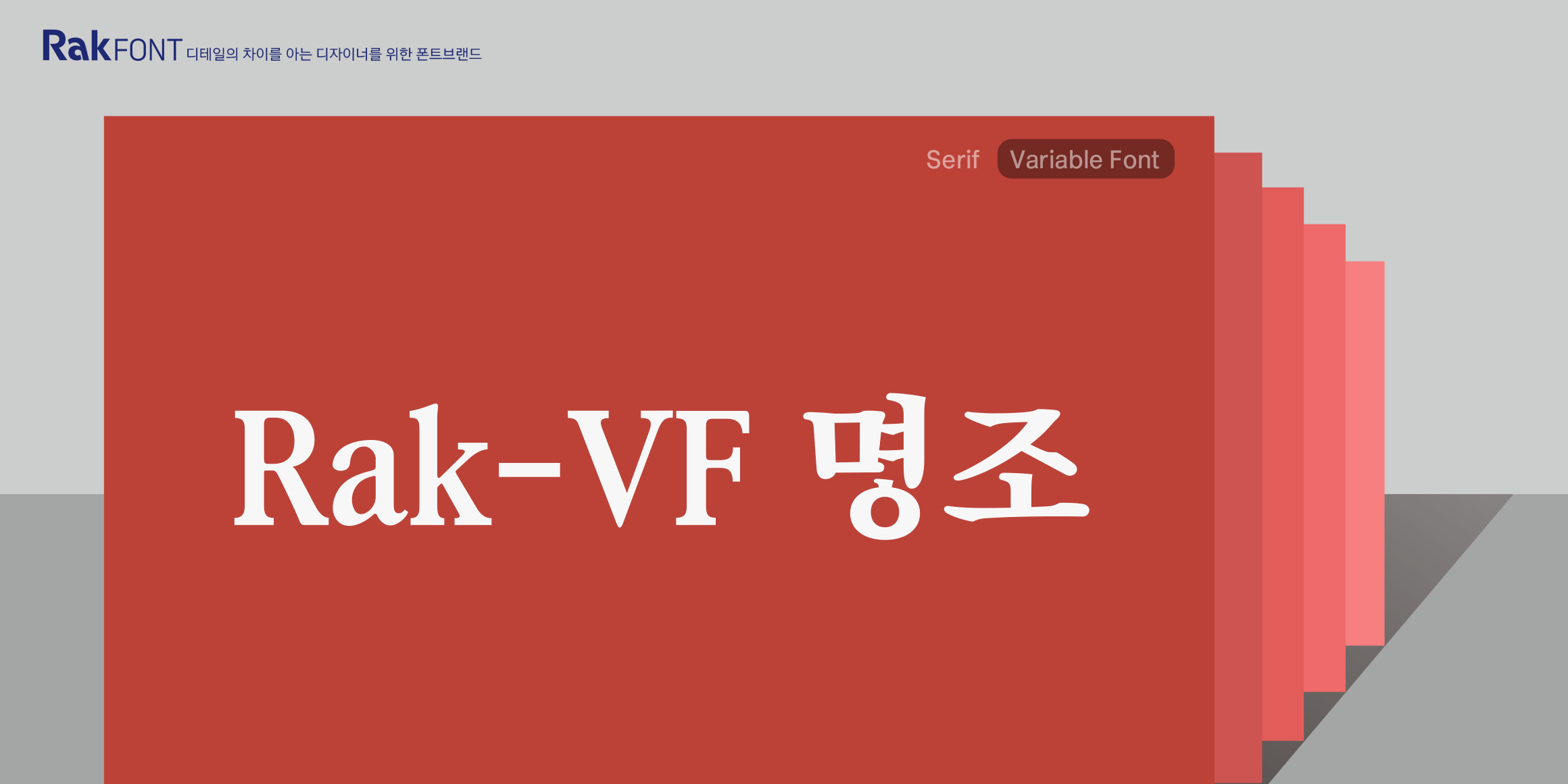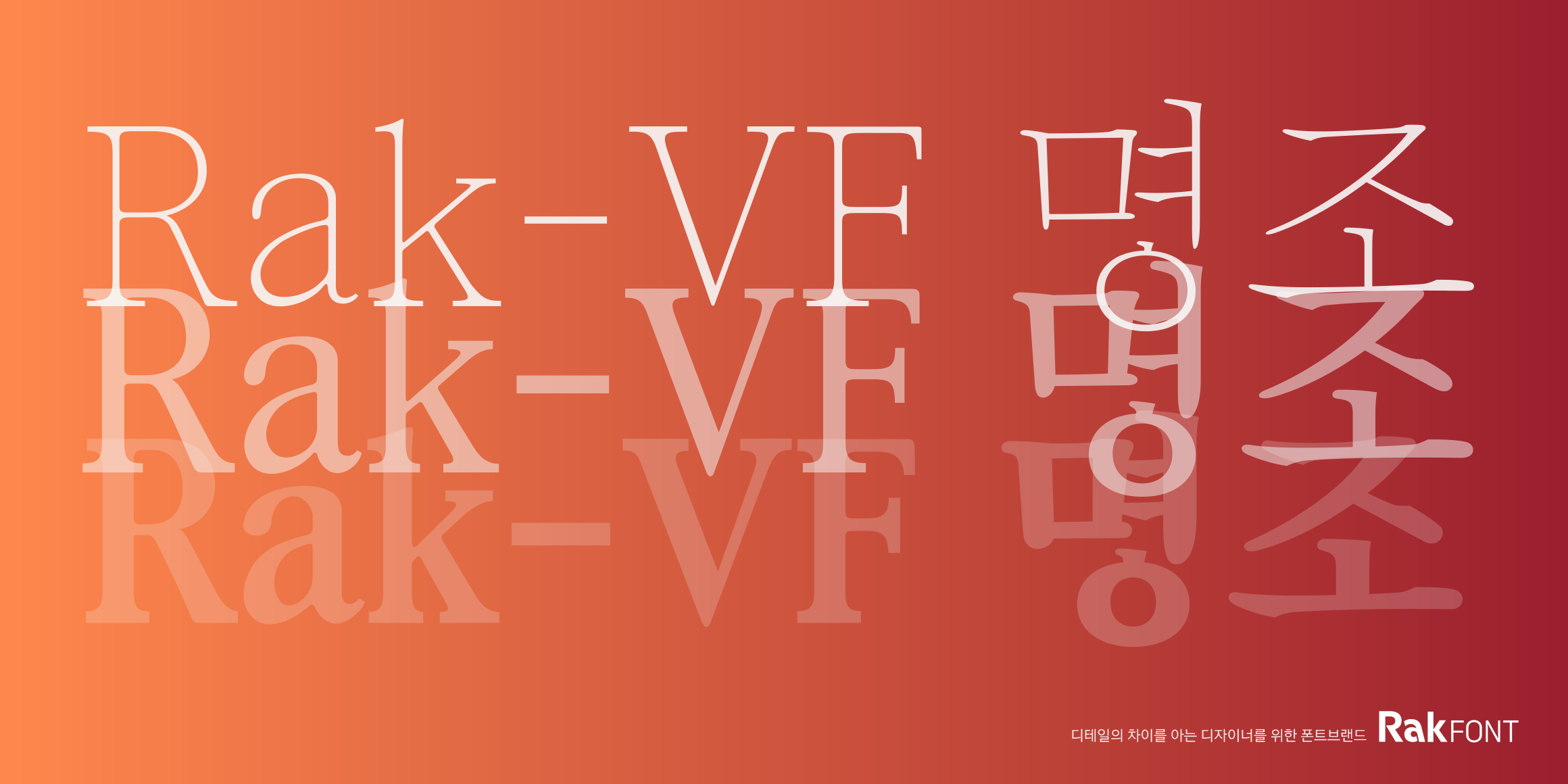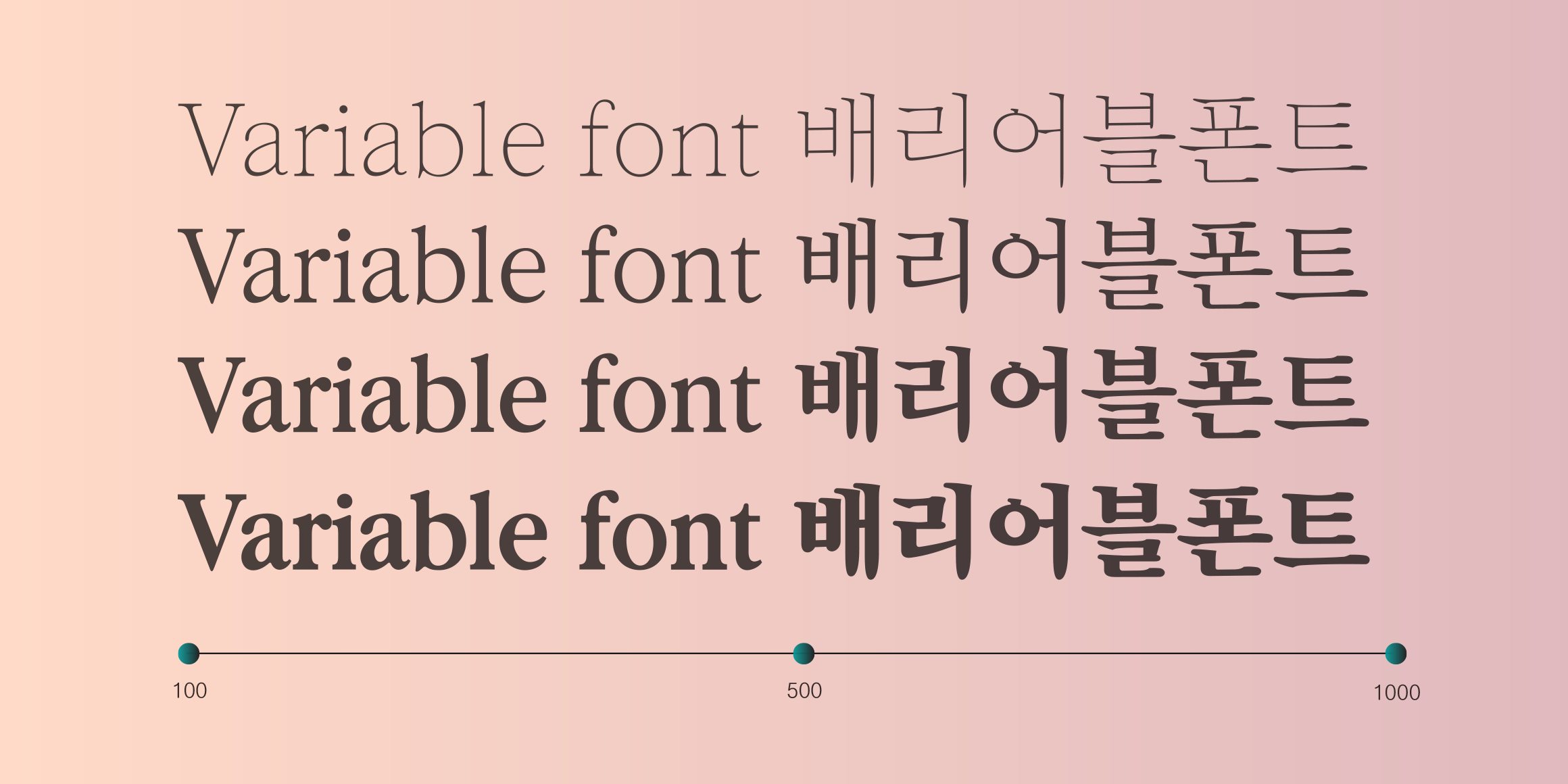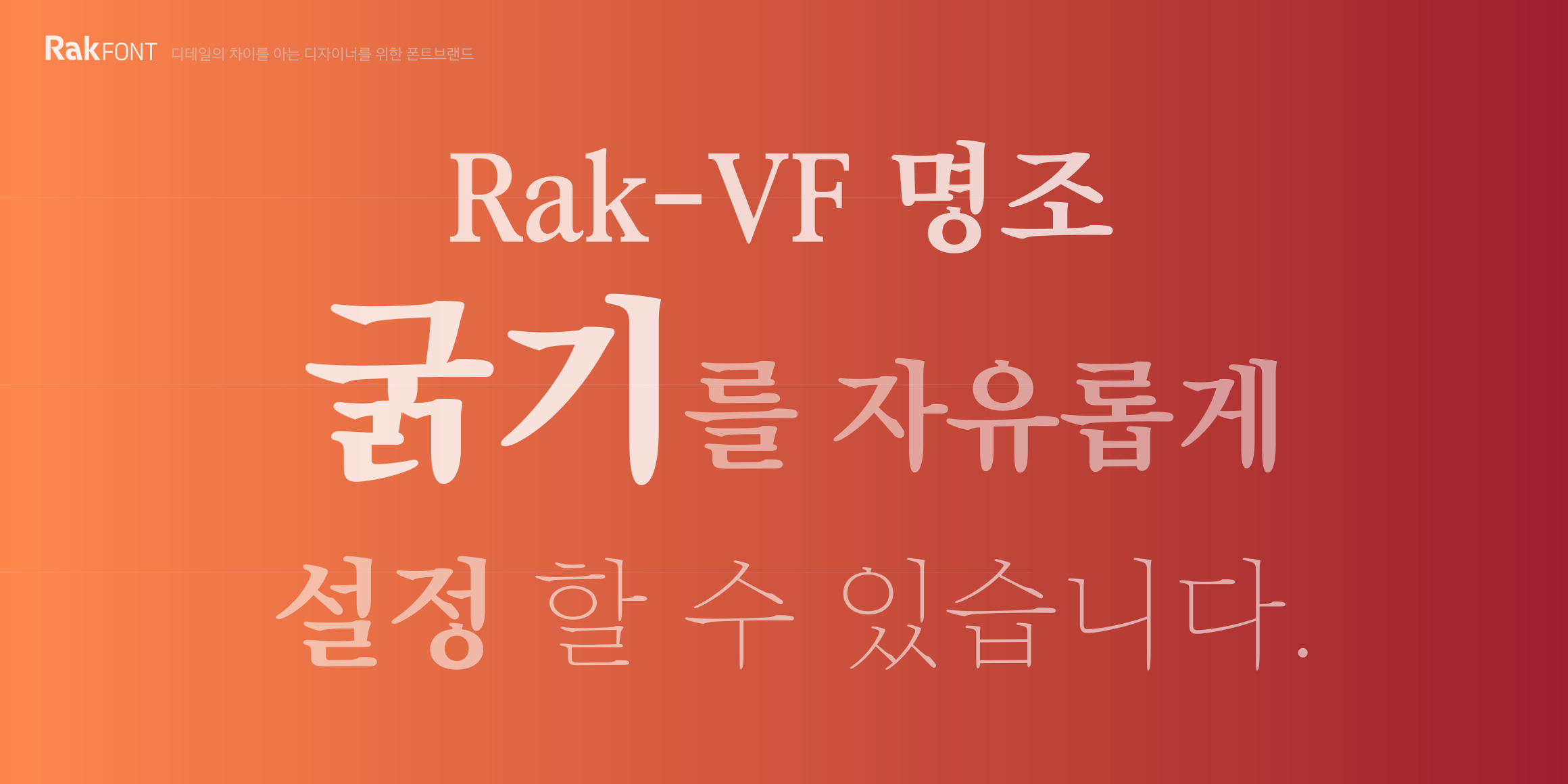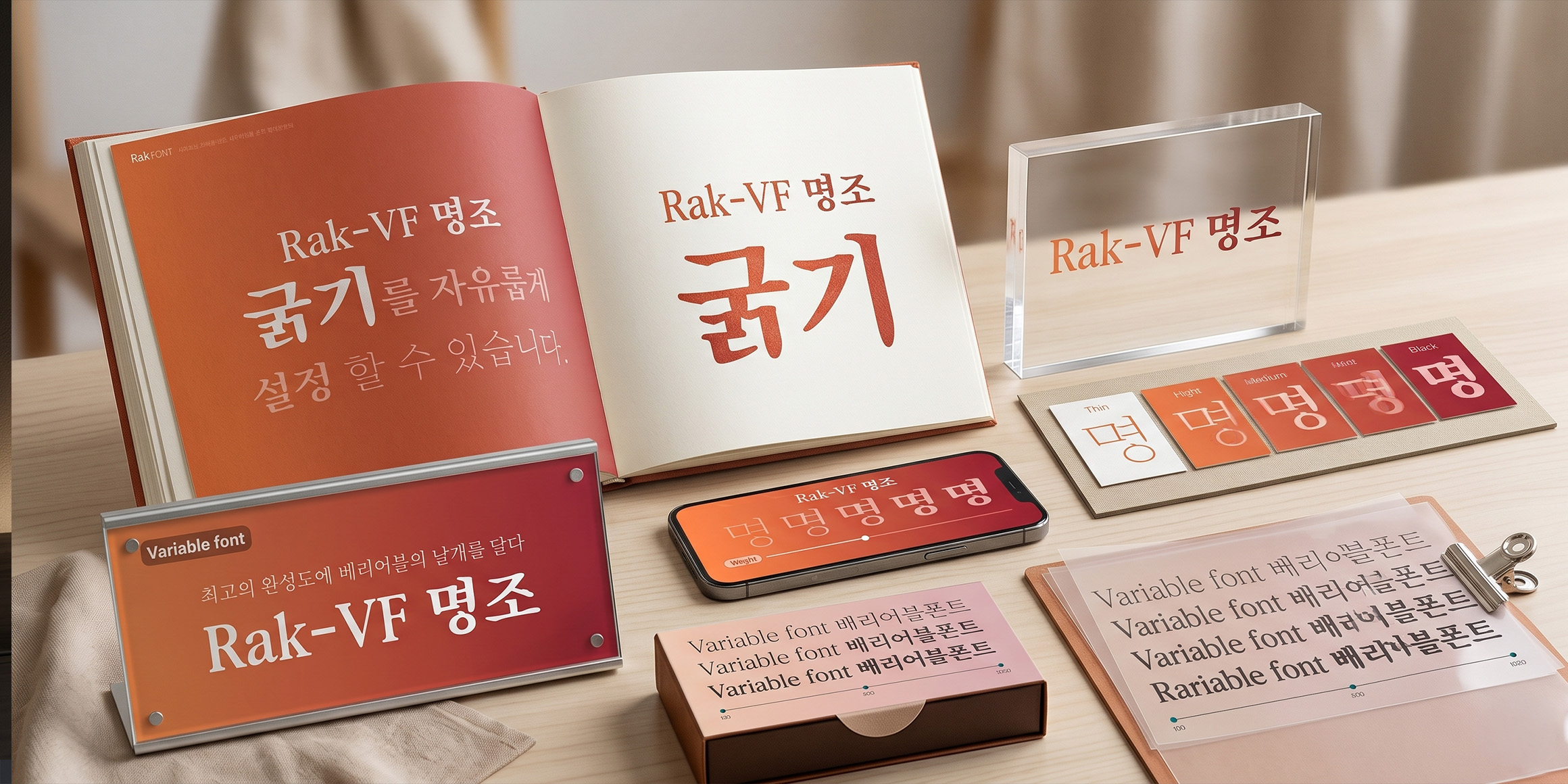
Rak-VF Mj
Infinite expansion of weight, the uncompromising variable 'Rak-VF Myeongjo'
Maintaining the structural perfection of Rak Myeongjo—which boasts a perfect balance of originality and legibility—it allows you to freely control any desired weight. It delivers the ultimate results for professionals who require precise typographic control.